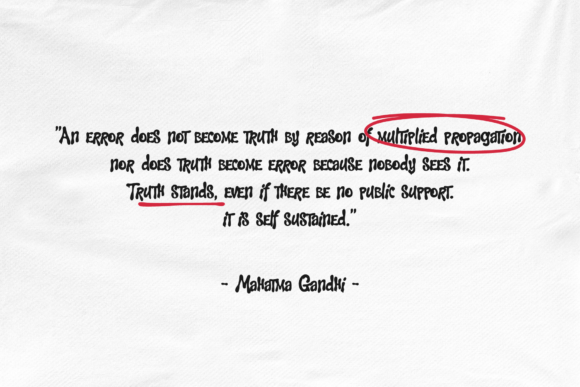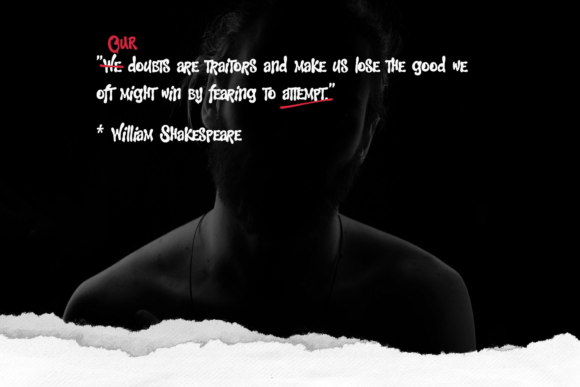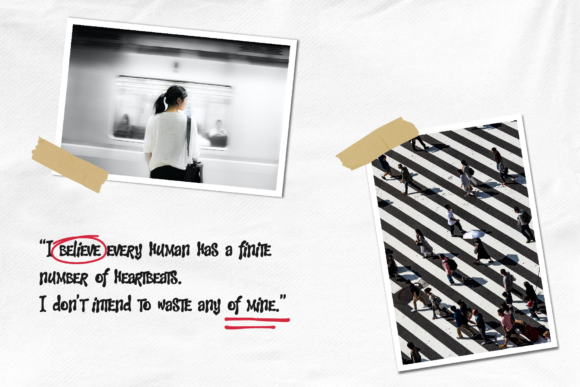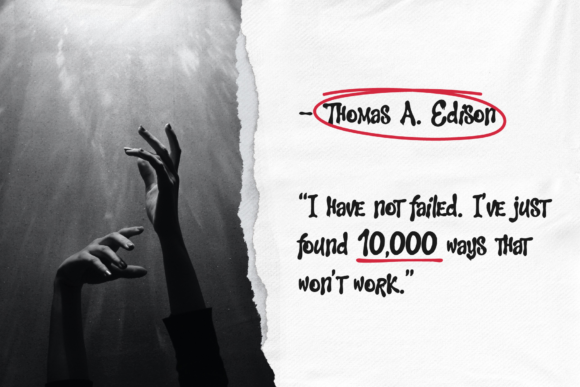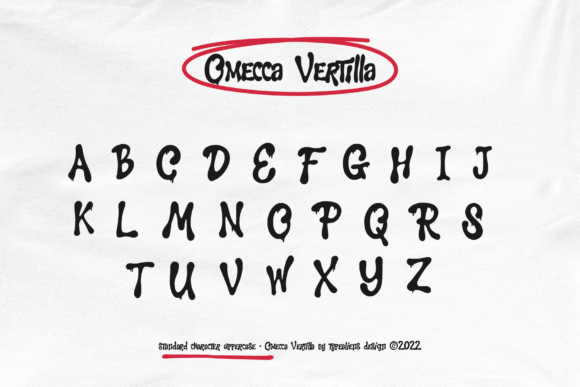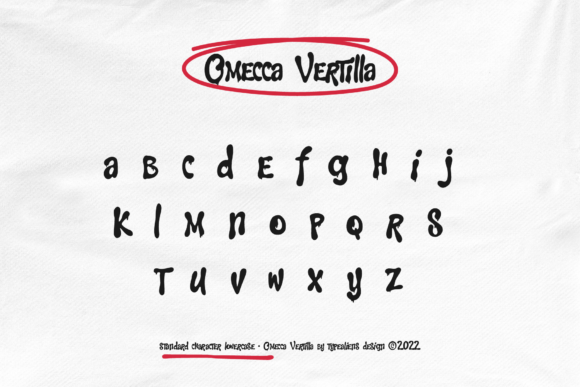
Introduction to Omecca Vertilla Font
Omecca Vertilla is a playful display font with a slight melting effect like dripping ink.
This modern font is suitable for branding modern styles such as social media, food, or snack brands The font is based on a relaxed sans serif font with varying letter heights so that it is very free to express a more wild, playful, and relaxed design style.
Key Features of Omecca Vertilla Font